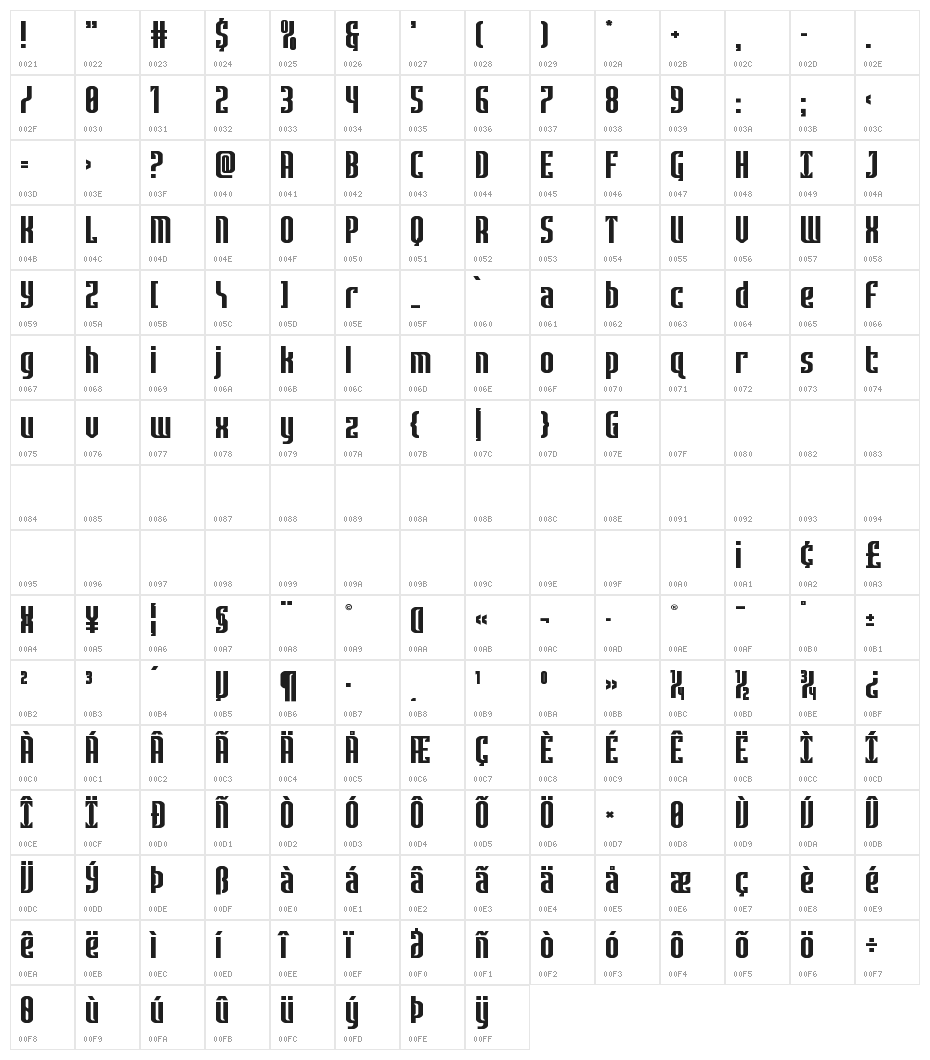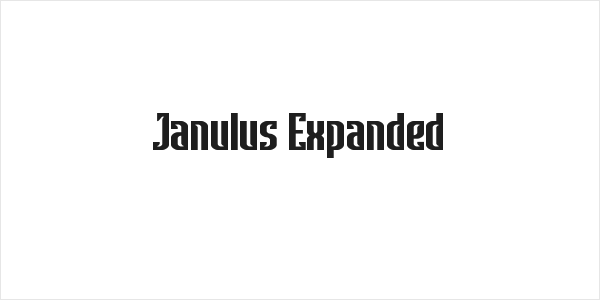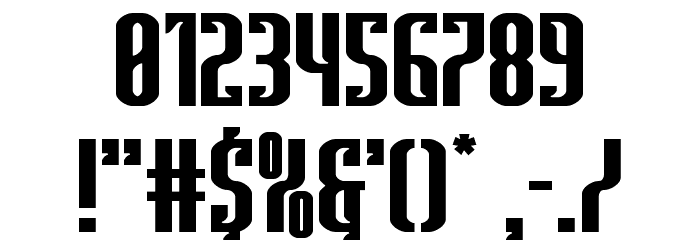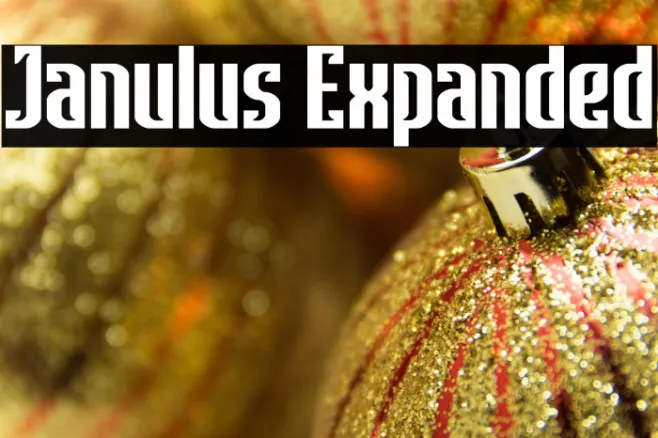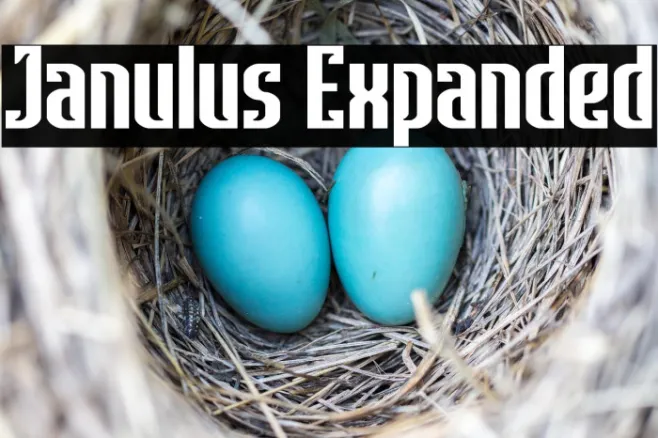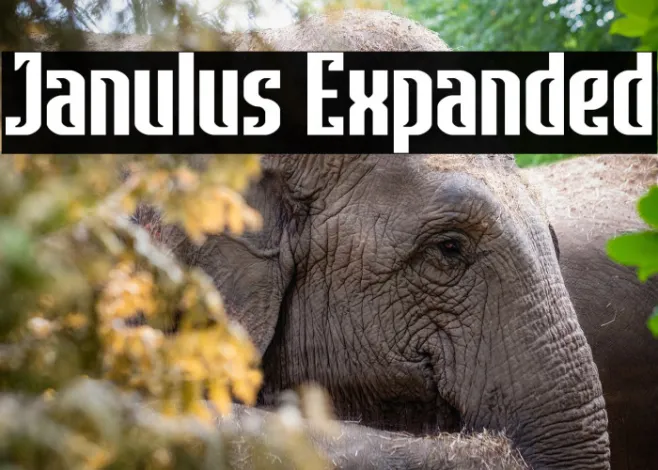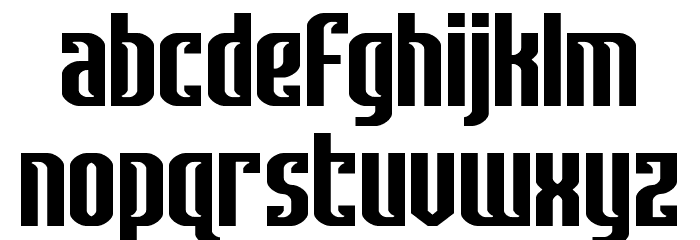
Janulus Expanded Font
Janulus Expanded Description
This font features a bold and striking design with a modern, expanded style. The characters are tall and narrow, with sharp angles and distinctive geometric elements that create a futuristic and dynamic appearance. The uppercase and lowercase letters maintain a consistent height, contributing to a uniform look. The numerals and special characters are designed to match the boldness and angularity of the alphabet, ensuring a cohesive visual impact. The overall aesthetic is both contemporary and assertive, making it suitable for projects that require a strong visual presence.
| Proposed Projects | Ideal for branding, posters, headlines, and any design requiring a bold statement. |